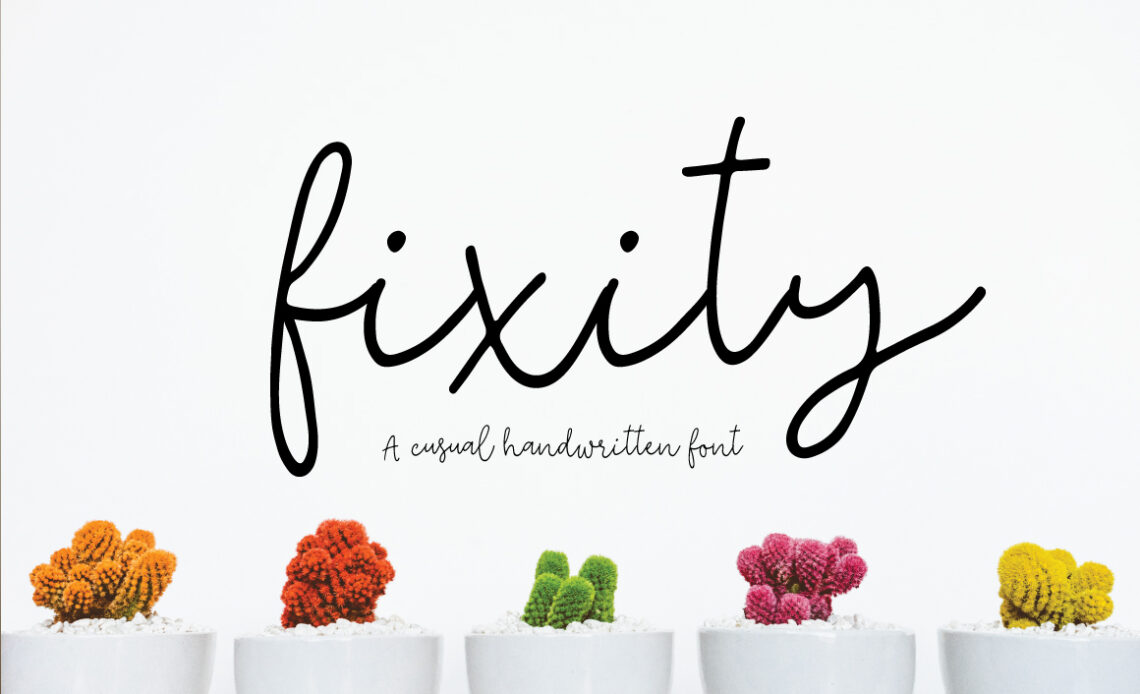
Introducing Fixity, a handwritten script font that captures the essence of elegance and creativity. Immerse yourself in the world of beautiful typography with this font that exudes a unique charm. Whether you're crafting heartfelt letters, designing captivating invitations, or adding a personal touch to your digital creations, Fixity will elevate your designs to new heights.
Step into the realm of artistic expression, where handwritten strokes dance harmoniously on the digital canvas. Fixity grants you the freedom to express your individuality, making each word, each sentence, and each design a reflection of your authentic style. Its charming imperfections and natural flow add a touch of warmth and authenticity to your projects.
With Fixity in your creative toolbox, you'll discover endless possibilities. Craft stunning logos that leave a lasting impression, create eye-catching social media graphics that captivate your audience, or design beautiful greeting cards that convey your heartfelt messages with grace and elegance. This versatile font complements any design aesthetic, making it the perfect choice for a wide array of creative endeavors.
As you embark on your creative journey with Fixity, you'll find yourself effortlessly creating designs that resonate with your audience. Its captivating script style adds a touch of whimsy and elegance to every project, capturing attention and leaving a lasting impression. Let Fixity be your creative companion, guiding you towards remarkable design achievements.
Unlock the power of Fixity today and elevate your designs to new heights. Experience the magic of handwritten elegance as your creations come to life with a unique charm that sets them apart. Embrace the beauty of Fixity, and let your creativity flourish beyond imagination.